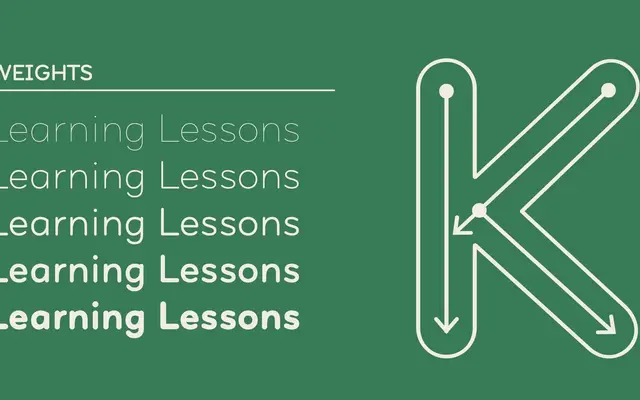
Formulate
Arcane Type Foundry · Alanna Munro · 2021
A rounded geometric sans designed by Alanna Munro with educational worksheets in mind, built around simplified modern letterforms and a high x-height.
Designed after researching how children are taught to write, Formulate draws on modern typographic conventions, including even proportions and a high x-height, that the designer found largely absent from existing teaching materials. The family spans five weights and extends into layerable styles (Arrows, Inline, Inline Dots, Outline Bold, Outline Light) and precomposed Decor variants, enabling teachers and designers to build custom worksheet layouts or decorative type treatments. OpenType alternates include double-storey a and g, serifless caps and a modified l, t and q.
Formulate is a geometric sans with rounded, even forms and a high x-height, constructed around simplified modern letterforms. Its origins in educational and handwriting reference materials place it firmly in a friendly, geometric sans tradition.